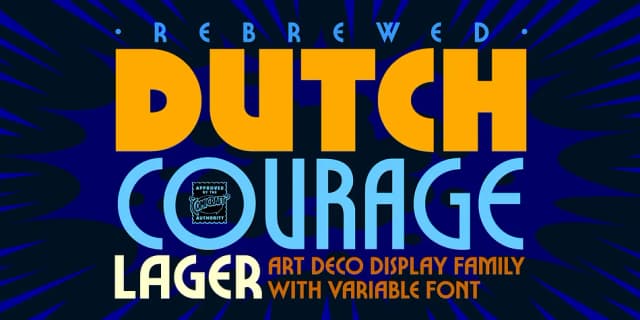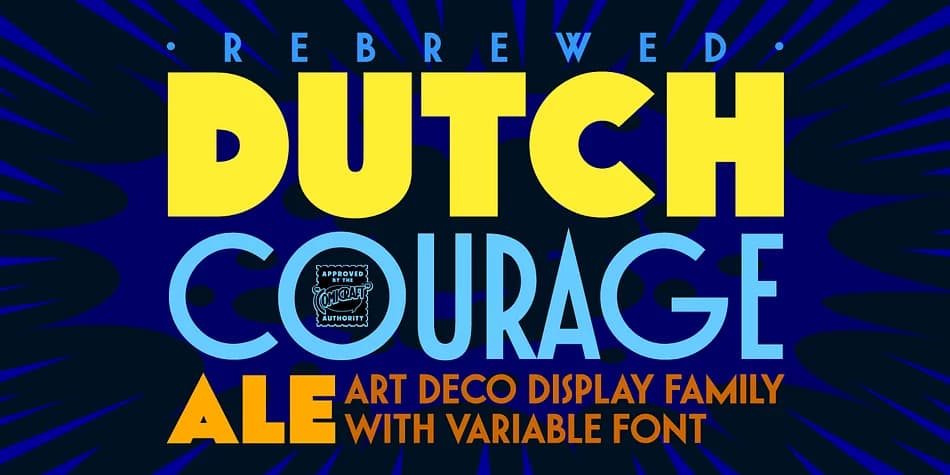
Dutch Courage Ale from Comicraft captures the geometric precision and cheerful boldness of 1920s typography. The letterforms sit solid and confident, with streamlined strokes that feel both modern and nostalgic, bringing Art Deco geometry to life without a shred of stuffiness or irony.
Originally created to nail the visual language of classic comics, this five-weight family works hard across diverse projects and scales. The heavier cuts (Porter and Stout) carry real authority and presence, while the lighter weights stay legible and approachable enough for body copy that needs texture. A variable font lets you dial in any weight between, and each weight includes four alternate sets, so you're never forced to use the same glyph twice across a layout.
Where this font shines: retro packaging for craft beverage labels, vintage-inspired branding systems, Art Deco poster design, and theatrical event signage that needs character without fussiness. It works equally well on a 1920s speakeasy menu or contemporary luxury product labels that borrow from that era's visual language. It's ideal for designers building vintage-inspired brands, illustrators seeking authentic 1920s letterforms, and anyone bringing period style to contemporary work. You'll find Dutch Courage Ale on Creative Fabrica.
Dutch Courage Ale Font is a decorative font that shines as a display or heading face. Pair it with a clean sans-serif or serif font for body text β the contrast creates a clear hierarchy while the two styles stay balanced and easy to read.